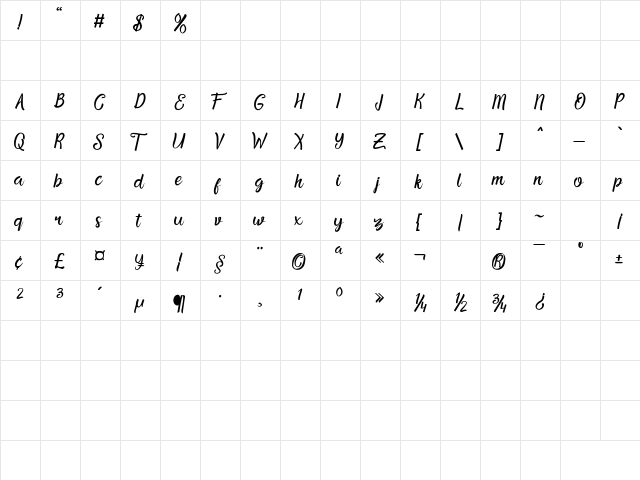
Pretty Honey Regular
Design Context for Pretty Honey Typeface
Pretty Honey is a composed and adaptable typeface that performs quietly and consistently across a wide range of design contexts.